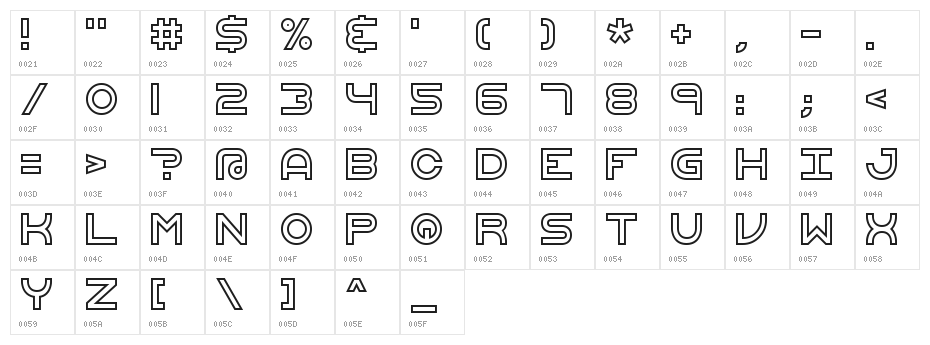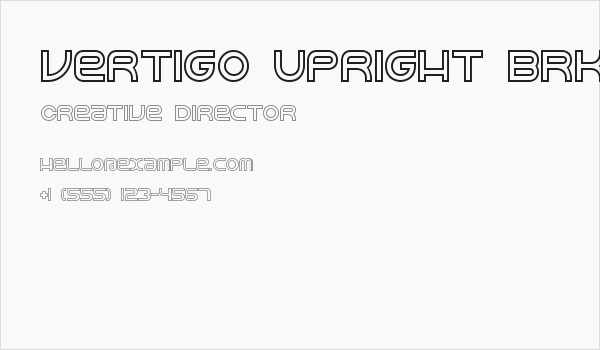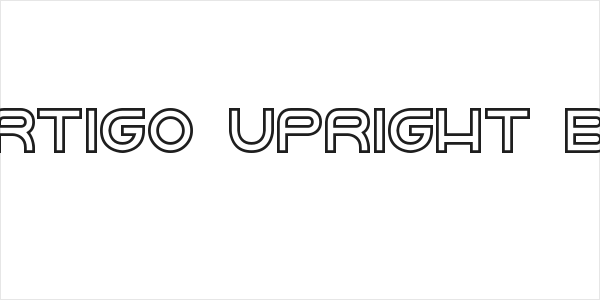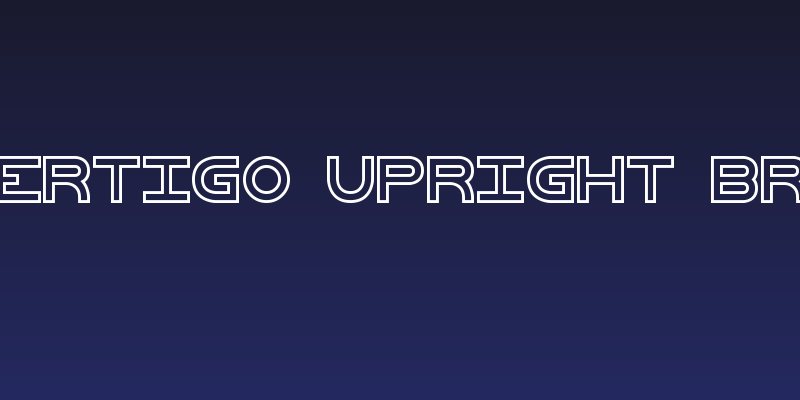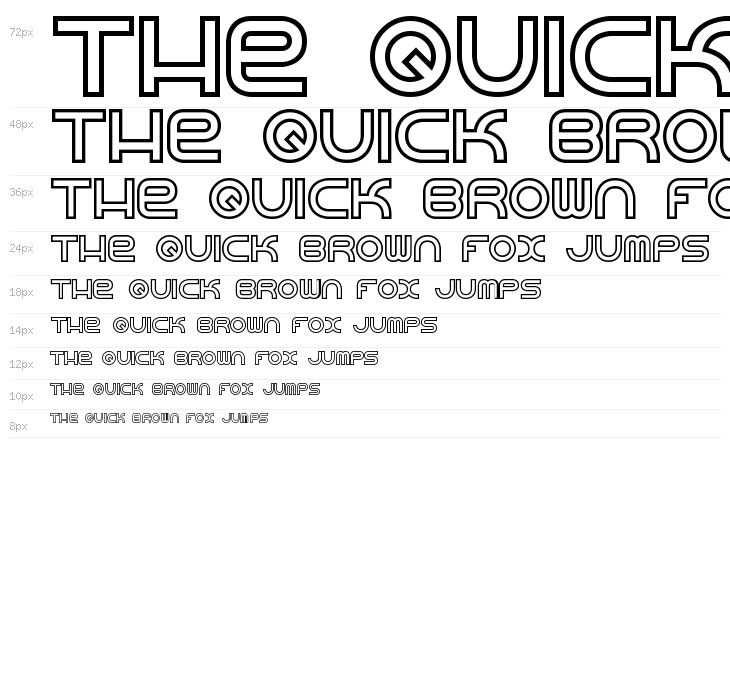
Vertigo Upright BRK Font
Vertigo Upright BRK Description
This font features a bold, geometric design with a distinct outline style. Each character is crafted with a double-line effect, giving it a futuristic and digital appearance. The uppercase and lowercase letters maintain a consistent structure, with rounded edges and a uniform thickness throughout. The numerals and special characters follow the same design principles, ensuring a cohesive look across all elements. This font's unique style makes it stand out, offering a modern twist on traditional typography.